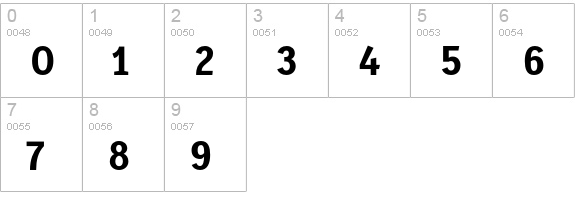
KarbidDisplay-Bold Font Details
KarbidDisplay-Bold is a strong, high-contrast variant in the KarbidDisplay typeface family \xE2\x80\x94 well suited to headlines, attention-grabbing titles, and strong calls-to-action.
KarbidDisplay-Bold is a striking and bold font that exudes confidence and strength. Its thick and powerful letterforms make a bold statement, commanding attention and leaving a lasting impression. Designed with a modern and edgy feel, this font is perfect for headlines, titles, and any design project that requires a strong and impactful presence. With its clean lines and precise geometry, KarbidDisplay-Bold offers a sleek and polished look that is both professional and contemporary. Its thick strokes and sharp angles give it a distinctive and eye-catching appeal, making it an excellent choice for branding, logos, and display purposes. The versatility of KarbidDisplay-Bold allows it to adapt to various design styles and themes. Whether it's a modern and minimalist approach or a more artistic and expressive design, this font effortlessly complements and enhances any visual concept. What sets KarbidDisplay-Bold apart is not only its stunning aesthetics but also its accessibility. It is freely available to download at FontsMarket.com, ensuring that designers and creatives can easily access and utilize this exceptional font in their projects. This accessibility allows for greater creativity and freedom, empowering designers to create impactful and engaging designs without any barriers. In conclusion, KarbidDisplay-Bold is a remarkable and powerful font that captivates with its boldness and versatility. Its striking design and freely available download option at FontsMarket.com make it an essential tool for designers looking to make a bold statement and leave a lasting impression.